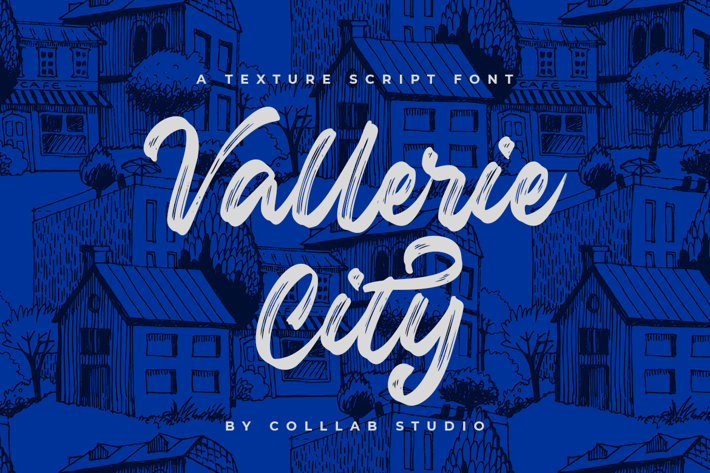
Vallerie City - A Textured Brush Font
Vallerie City is a textured script font that’s as bold as it is beautiful. Its brush texture gives it a strong character, but the creativity behind its design makes it playful and easy to read at the same time.
Vallerie City is a nice font for someone who wants to make their mark on the world. It’s also great for someone who isn’t too sure what they want their mark to look like but they definitely want something special.
- 416 Glyphs,
- Swashes & Ligatures
- 2 Stylistics alternates
- Multilanguage Support ( 76 Languages )